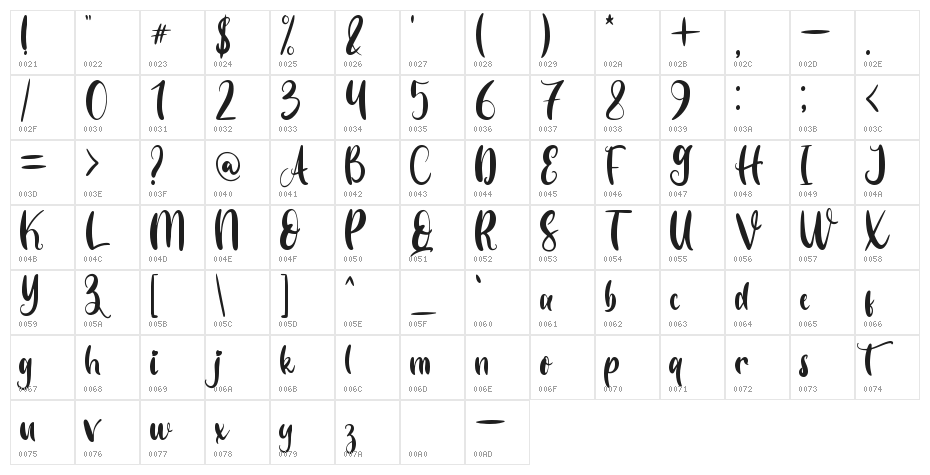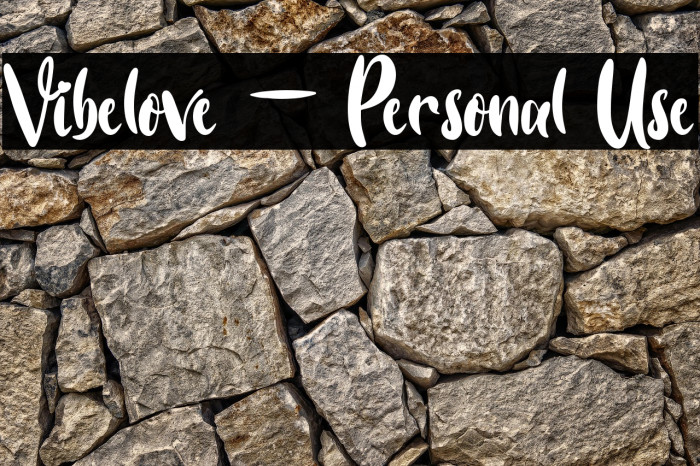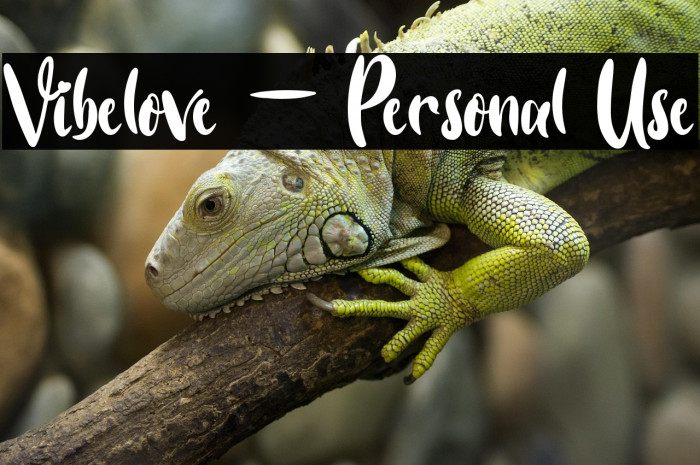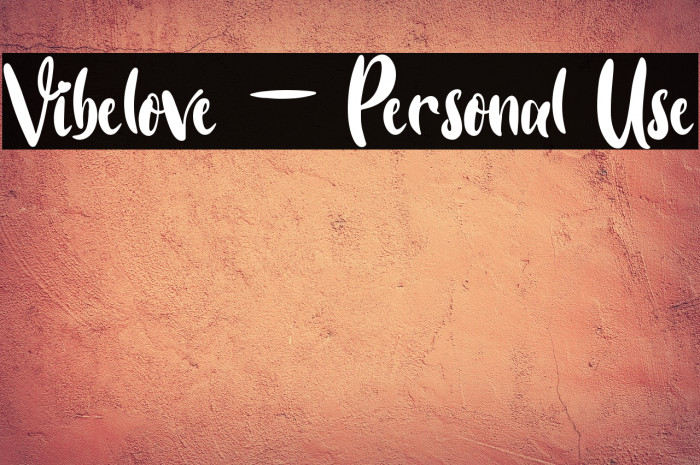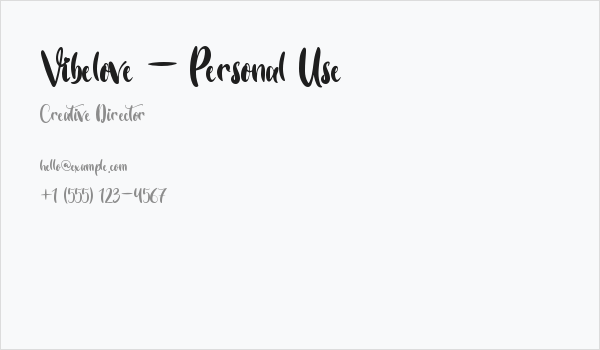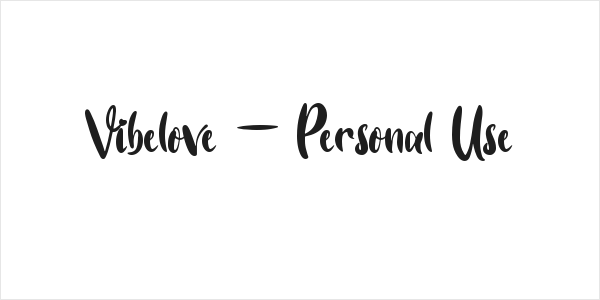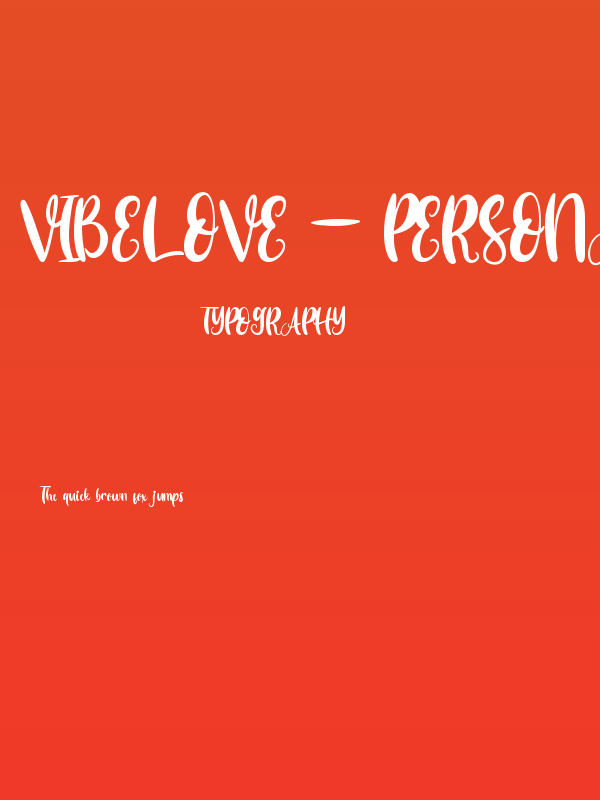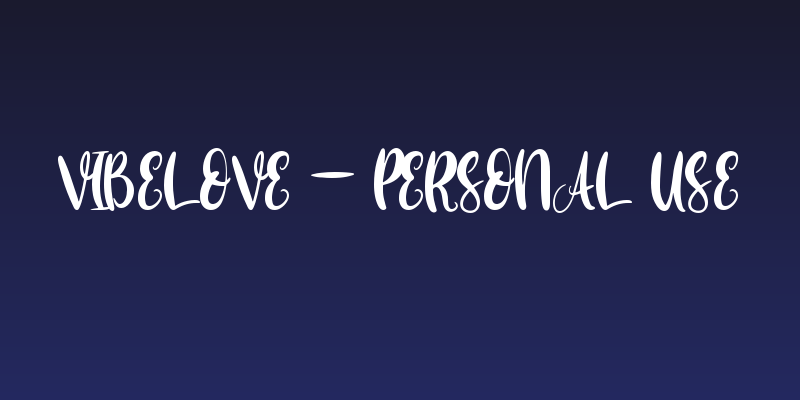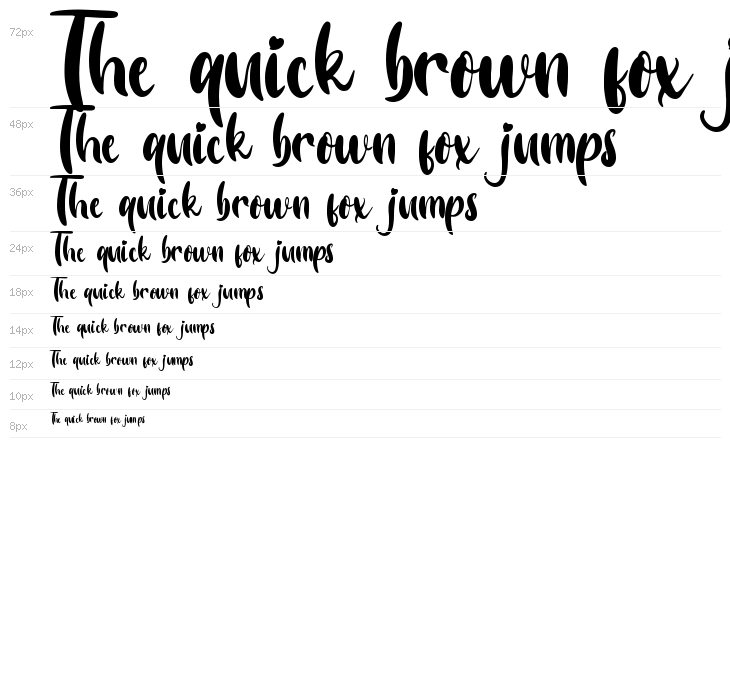
Vibelove - Personal Use Font
Vibelove - Personal Use Description
This font features a playful and expressive script style with a handwritten feel. The letters are bold and fluid, with a dynamic flow that gives a sense of movement and energy. The uppercase letters are particularly striking, with exaggerated loops and swirls that add a decorative touch. The lowercase letters maintain the same lively character, with smooth curves and a consistent stroke width. Numbers and special characters are equally stylized, ensuring a cohesive look across all text elements. This font's unique personality makes it ideal for creative projects that require a touch of whimsy and flair.
| Proposed Projects | Ideal for greeting cards, invitations, branding, and social media graphics. |